Top 10 Best-Selling Professional Font Templates That Will Transform Your Designs in 2025
Arissa
Description
Arissa brings an authentic brush handcrafted feel to your designs with its organic, flowing letterforms. This versatile typeface excels in stationery design, logo creation, and branding projects where you need that perfect balance of elegance and approachability. The font includes multiple character variations and ligatures, making it ideal for creating unique, personalized designs that feel genuinely handmade. Its warm, inviting aesthetic works particularly well for lifestyle brands, artisanal products, and creative services.
Who it's suitable forBrand designers, logo creators, stationery designers, and lifestyle marketers
Description
Perfect for adventure-themed projects and travel-related branding, Traveller Typeface captures the spirit of exploration and discovery. This robust font family offers excellent readability while maintaining a distinctive character that evokes wanderlust and outdoor adventures. The typeface includes multiple weights and styles, making it versatile enough for both headlines and body text. Its rugged yet refined appearance makes it ideal for outdoor gear brands, travel agencies, and adventure sports companies.
Who it's suitable forTravel marketers, outdoor brands, adventure sports companies, and tourism professionals
Description
MODERNIZE lives up to its name with clean, contemporary letterforms that embody current design trends. This sleek typeface offers exceptional versatility for modern branding projects, tech companies, and minimalist design applications. The font features carefully crafted spacing and proportions that ensure excellent readability across all media, from digital screens to print materials. Its geometric precision and subtle personality make it perfect for brands that want to convey innovation, reliability, and forward-thinking approaches.
Who it's suitable forTech companies, modern brands, web designers, and minimalist design enthusiasts
Description
Quickturn stands out with its extensive collection of ligatures and alternate characters, offering designers unprecedented creative flexibility. This dynamic typeface combines modern aesthetics with classic typographic principles, resulting in a font that's both contemporary and timeless. The extensive character set includes stylistic alternates, ligatures, and special characters that allow for truly custom typography solutions. Its versatility makes it suitable for everything from editorial design to brand identity projects.
Who it's suitable forEditorial designers, brand identity specialists, creative agencies, and typography enthusiasts
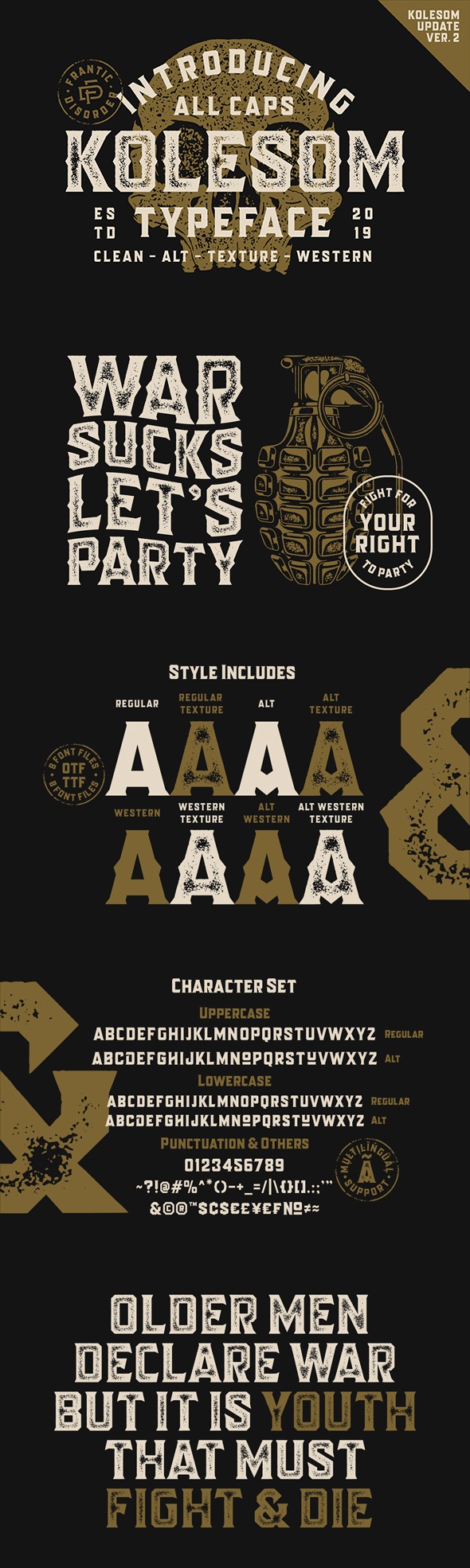
Description
Kolesom brings a distinctive artistic flair to your typography with its unique character design and creative letterforms. This typeface strikes an excellent balance between readability and personality, making it perfect for brands that want to stand out while maintaining professional credibility. The font includes various weights and styles, providing flexibility for different design contexts. Its artistic nature makes it particularly well-suited for creative industries, cultural organizations, and brands seeking to convey creativity and innovation.
Who it's suitable forCreative agencies, cultural organizations, artistic brands, and design-forward companies
Description
Blantic combines elegance with functionality in a sophisticated typeface that works beautifully across multiple applications. This contemporary font offers excellent legibility while maintaining a distinctive character that adds subtle personality to any design. The typeface includes a comprehensive character set with international language support, making it perfect for global brands and multilingual projects. Its refined aesthetic makes it particularly suitable for luxury brands, professional services, and high-end marketing materials.
Who it's suitable forLuxury brands, professional services, international companies, and premium product marketers
Check the best price hereMasto Typeface
Description
Masto delivers bold, impactful typography that commands attention while maintaining excellent readability. This powerful typeface is designed for projects that need to make a strong visual statement, whether in headlines, signage, or brand identity applications. The font family includes multiple weights and styles, providing versatility for comprehensive design systems. Its confident character makes it ideal for sports brands, automotive companies, and any business that wants to convey strength and reliability.